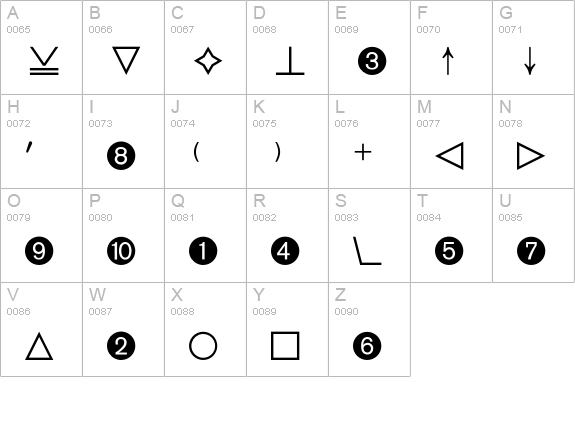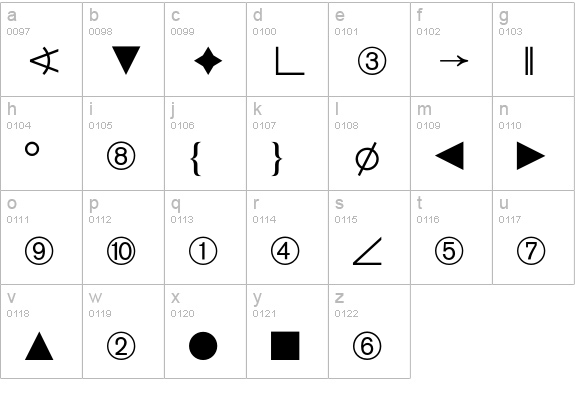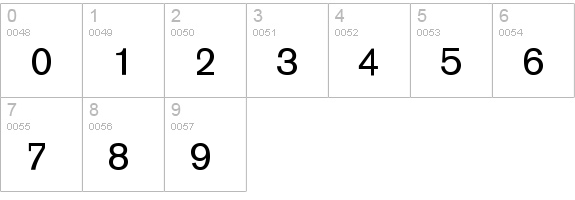
Akzidenz-Grotesk Figures + Pi Font Details
Akzidenz-Grotesk Figures + Pi font is a versatile and elegant typeface that exudes a sense of modernity and sophistication. With its clean lines and striking design, this font is perfect for a wide range of design projects, from branding and advertising to editorial and web design. The Figures + Pi variant of Akzidenz-Grotesk adds a unique touch with its special characters and numerical symbols, making it a valuable addition to any designer's toolkit. The best part is that Akzidenz-Grotesk Figures + Pi font is available for free download at FontsMarket.com. This means that you can easily access and use this high-quality font in your projects without any additional cost. Don't miss out on the opportunity to enhance your designs with the timeless appeal of Akzidenz-Grotesk Figures + Pi font – download it for free today at FontsMarket.com!